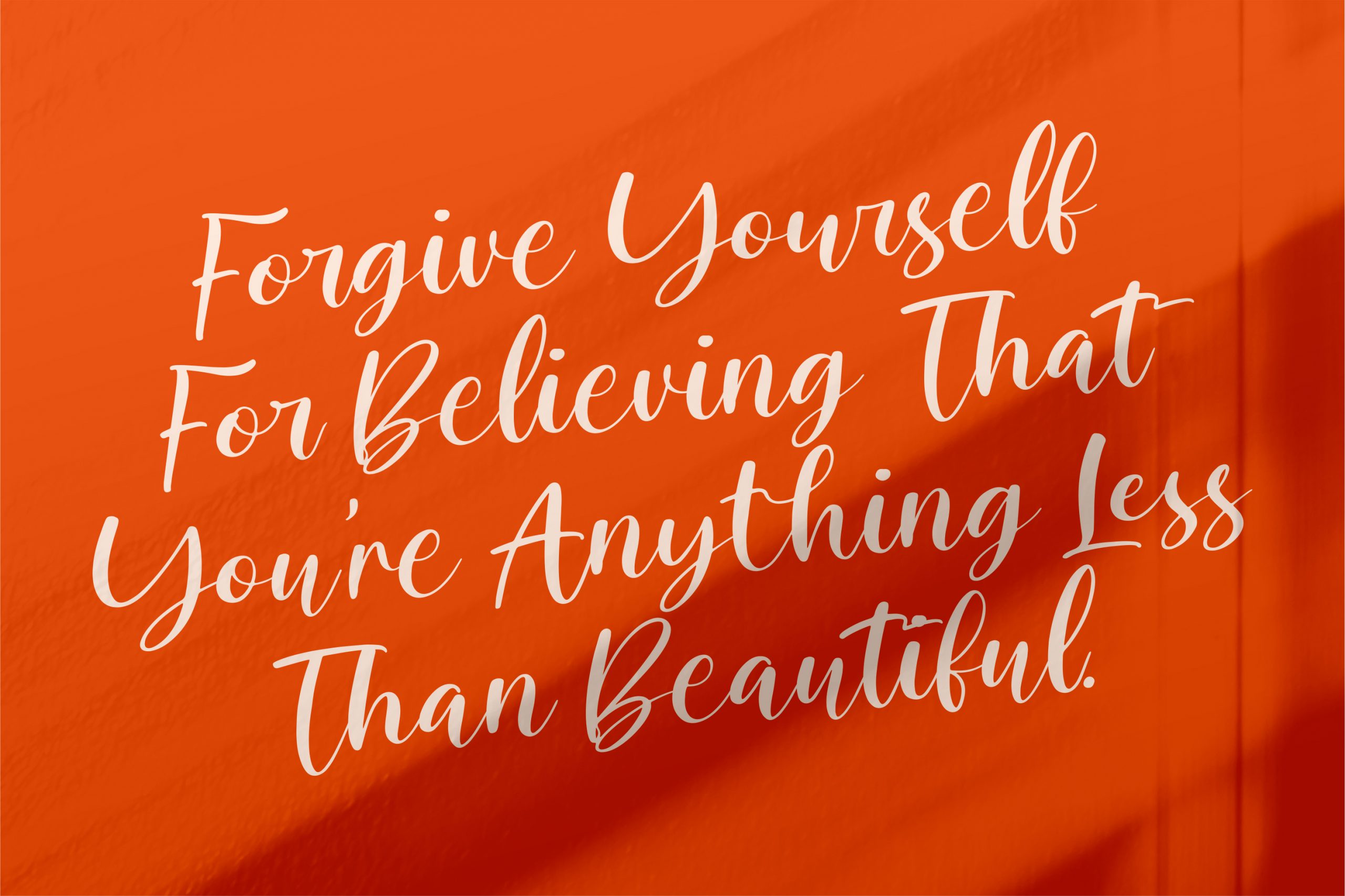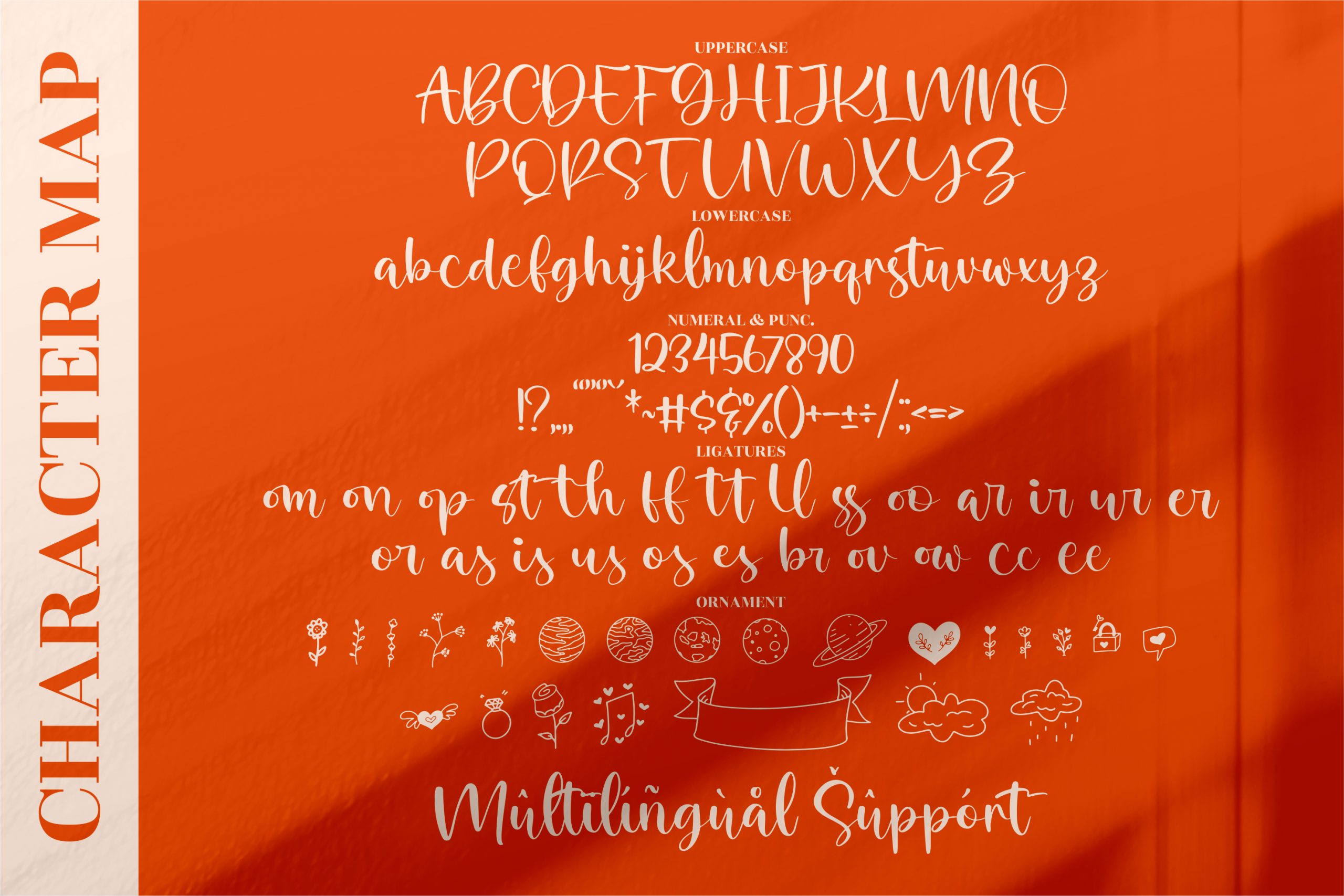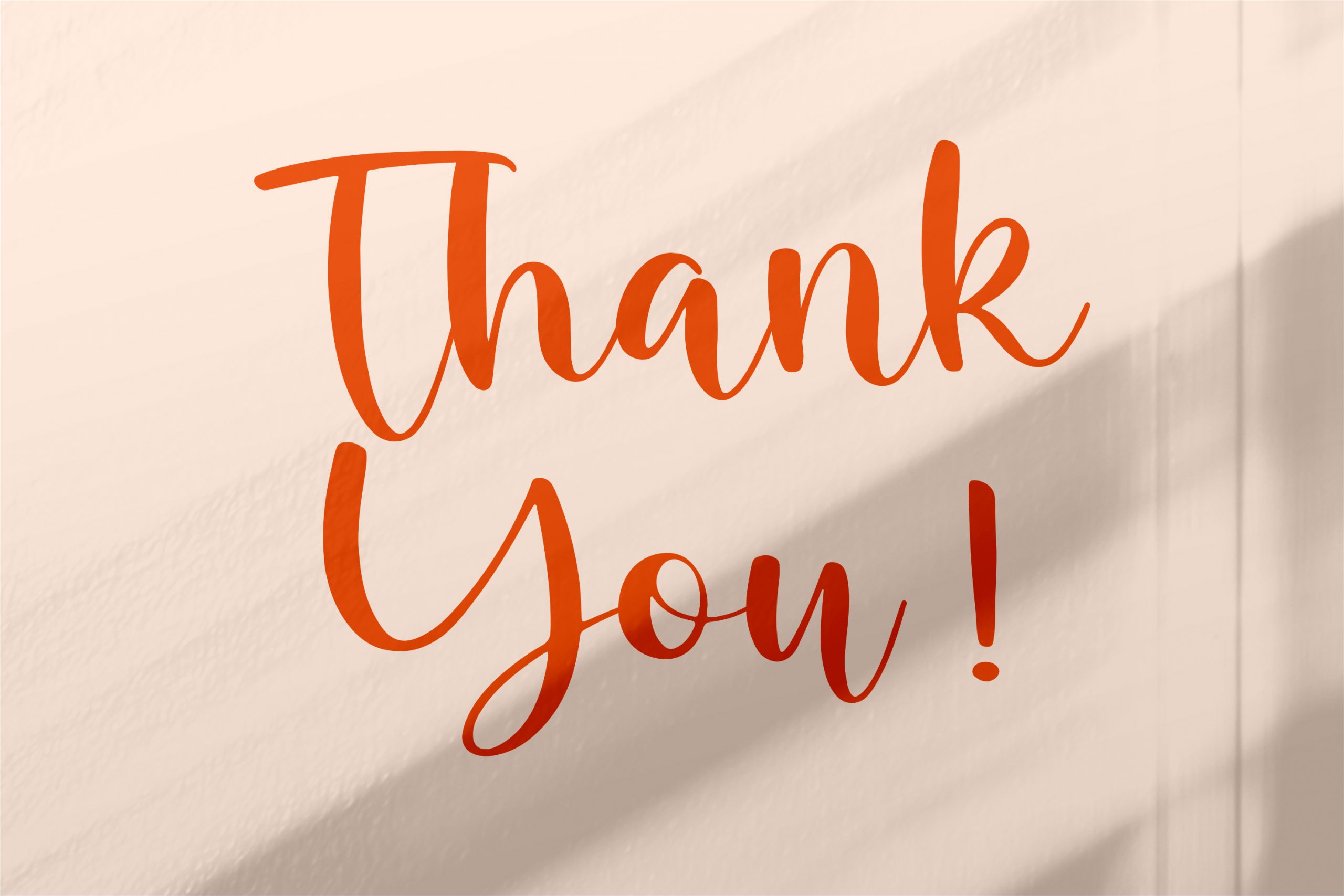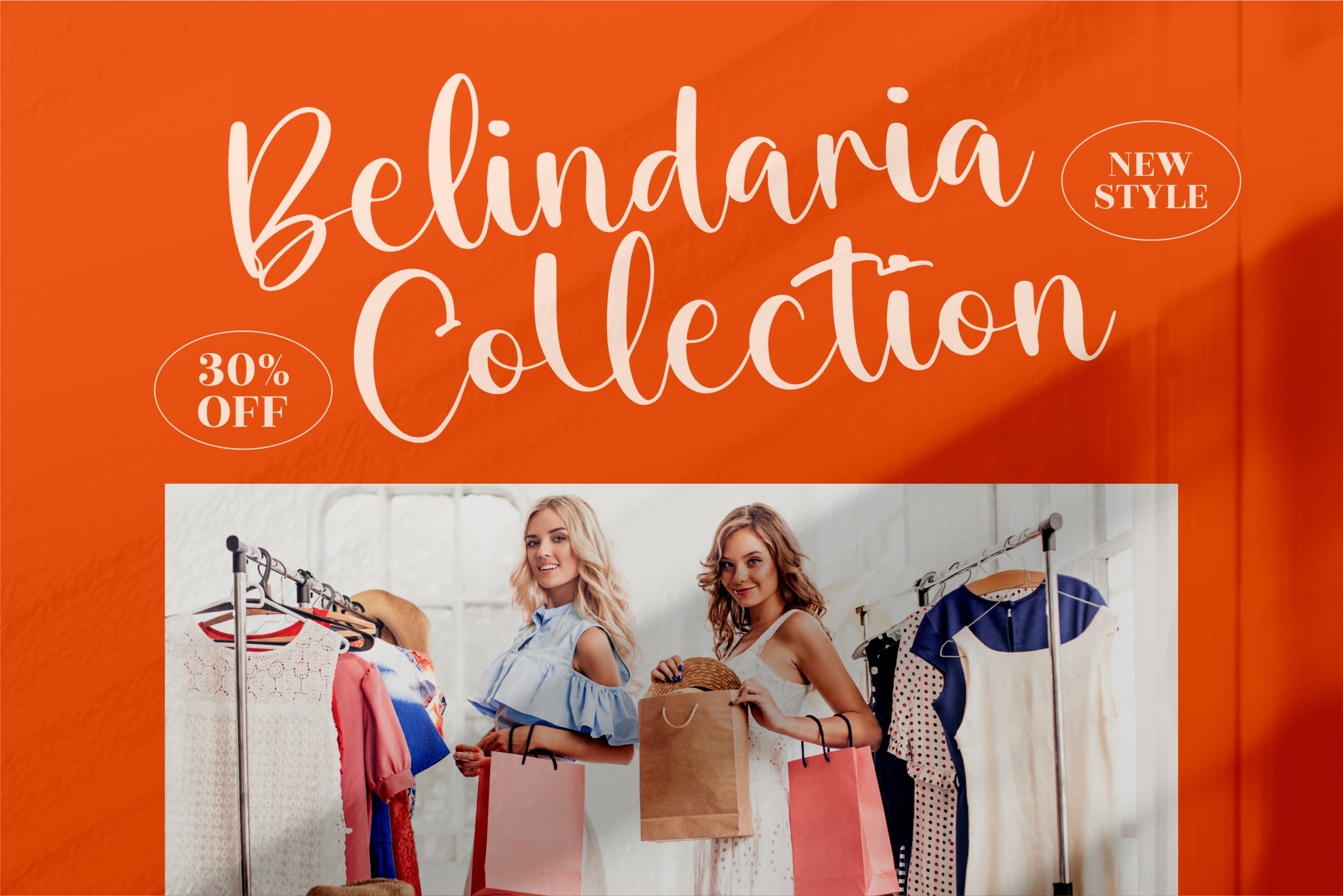
Palister Honey Font
Palister Honey Script Font
This is a romantic calligraphy font, suitable for any projects such as: logos, branding projects, homeware designs, product packaging, mugs, quotes, posters, shopping bags, t-shirts, book covers, name card, invitation cards, greeting cards, label, photography, watermark, special events, and all your other lovely projects that need a beautiful script taste.